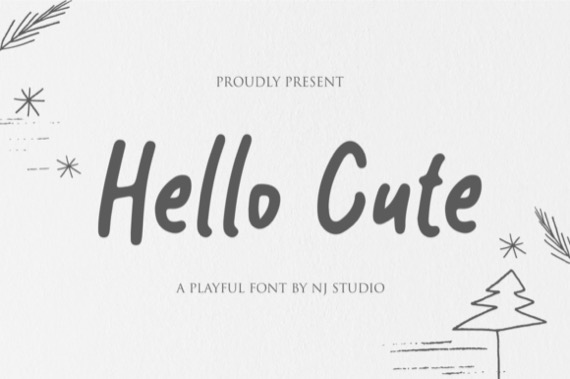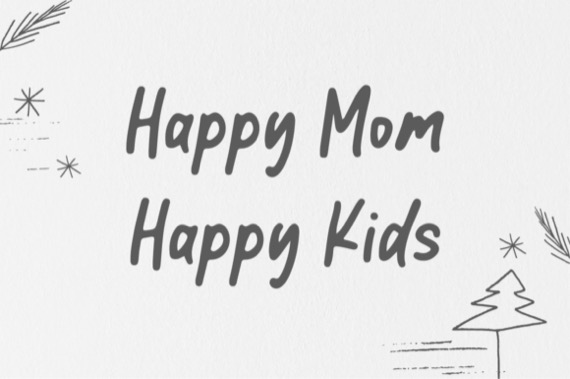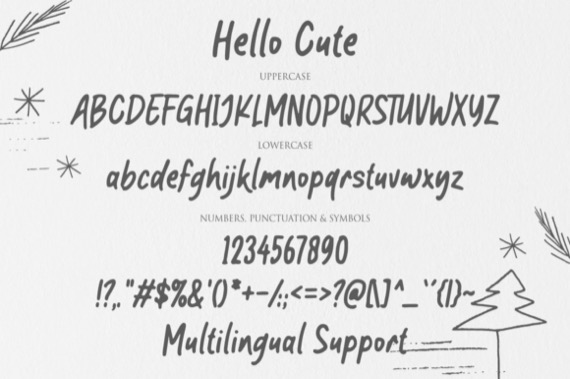
Introducing a new fresh stylish script typeface from NJStudio, Hello Cute is a fun and friendly handwritten font. Whether you’re using it for crafts, digital design, presentations, or making greeting cards, this font has the potential to become your favorite go-to font, no matter the occasion!
Hello Cute Handwritten Font
Designer, Publisher: NJStudio